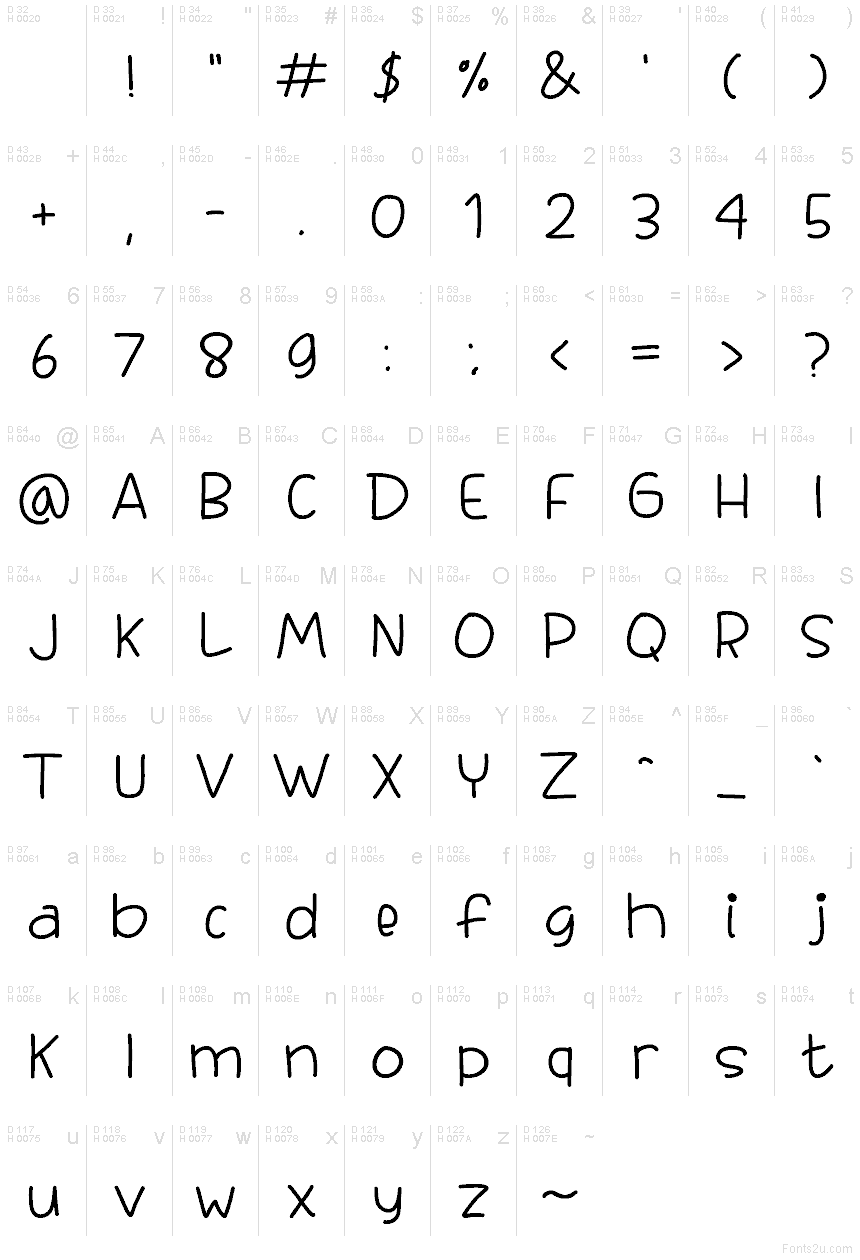
Cheese Craft
Cheese Craft font by Origin Type is a free handwritten font with a casual feel and organic flow. Its characters carry a personal touch that ensures their approachable mood, and therefore, allows this resource to be used for small-scale projects such as invitations or for online platforms, sharing a font that both the reader and the designer can enjoy.
Experiment with Cheese Craft’s varied collection of characters for notebook covers, graffiti stickers, logos and labels for food packaging, infographics where each icon counts, as well as designs where small bits of info make all the difference. The presented keywords are helpful when diving headfirst into this experience!